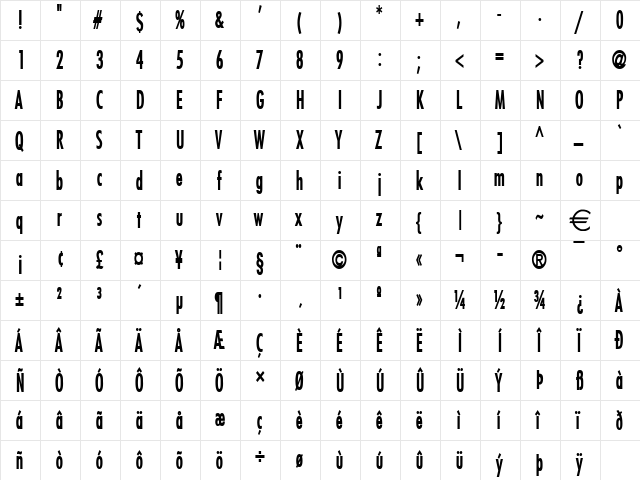
FujiThin Bold Font Preview
FujiThin Bold
Design Context for FujiThin Typeface
FujiThin is a composed and adaptable typeface that performs quietly and consistently across a wide range of design contexts. The heavy weight commands attention and anchors typographic hierarchies.